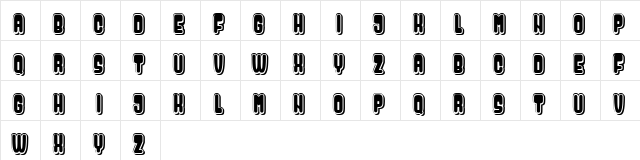
Clowns Regular
Design Context for Clowns Typeface
Clowns is a composed and adaptable typeface that performs quietly and consistently across a wide range of design contexts.